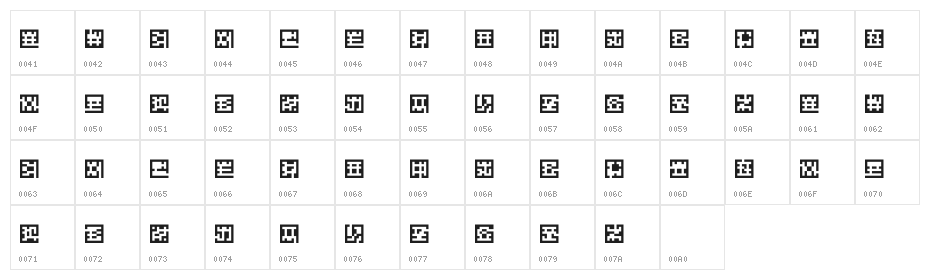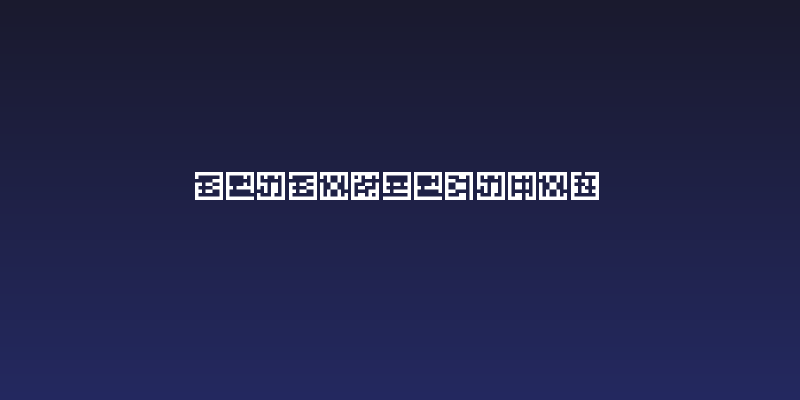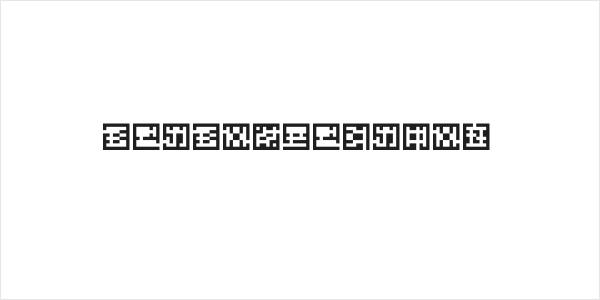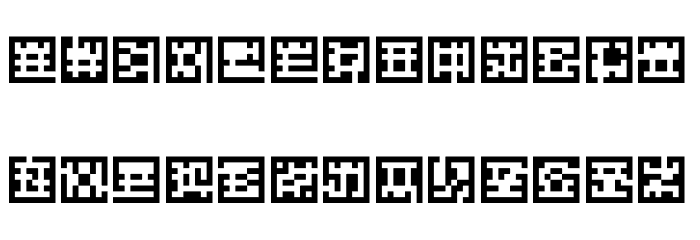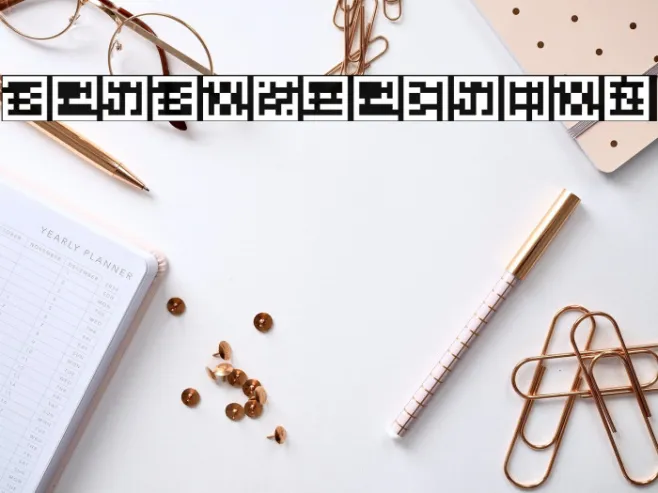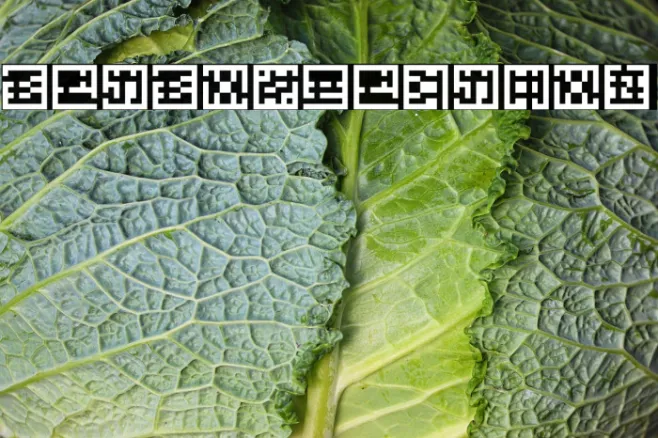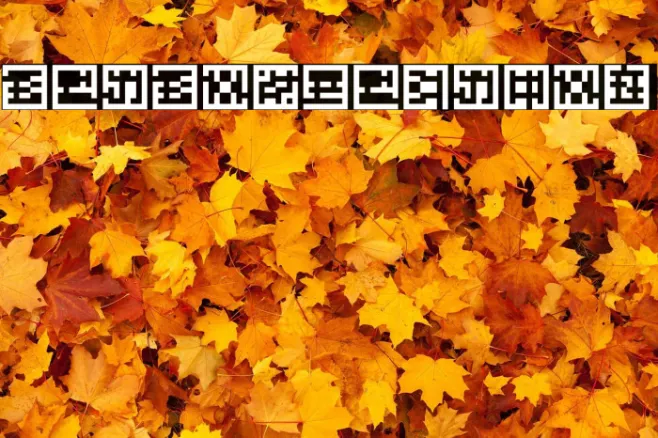
Retrospection Font
Retrospection Description
This font features a highly decorative and abstract design, reminiscent of pixel art or digital patterns. Each character is enclosed within a square, creating a uniform and structured appearance. The design is bold and geometric, with intricate patterns filling each letterform, making it stand out as a unique and artistic choice. The font's style is more suited for visual impact rather than readability, making it ideal for creative projects that require a distinct and memorable typeface.
RETROSPECTION UPPERCASE
RETROSPECTION LOWERCASE
RETROSPECTION OTHER CHARS
| Use Case | Logos, Posters, Digital Art |
| Proposed Projects | Ideal for digital art projects, video game design, posters, and any creative work that benefits from a unique and eye-catching typeface. |